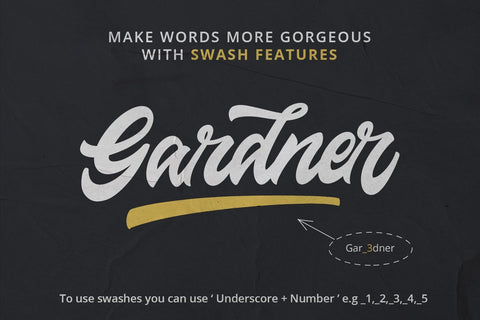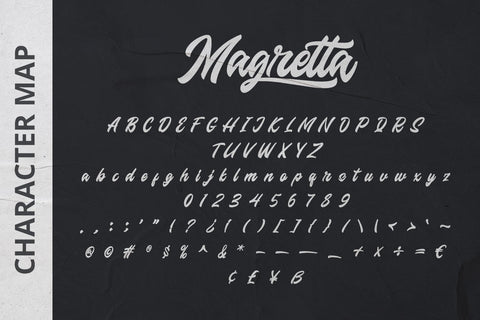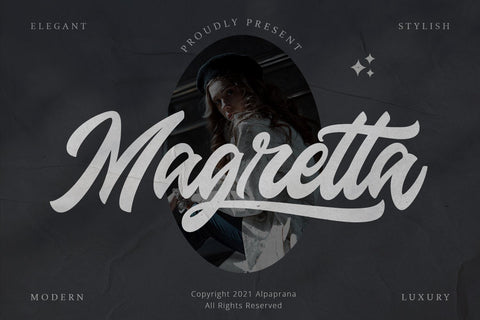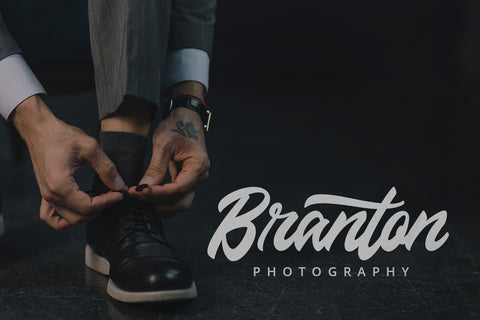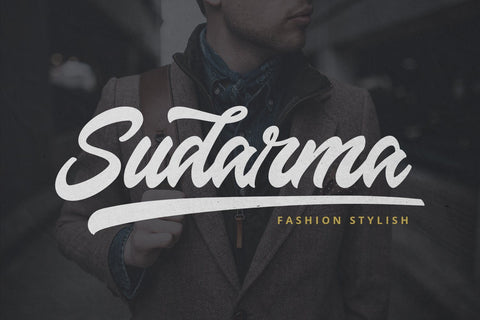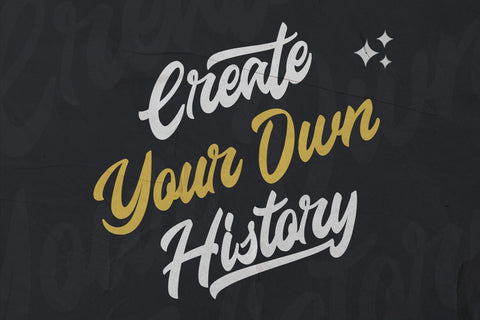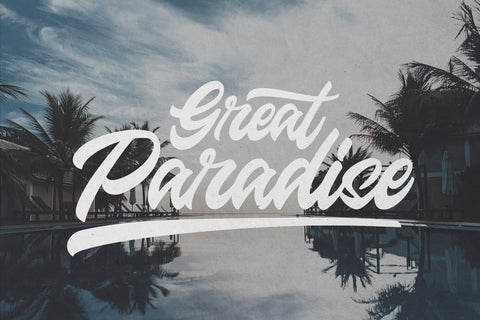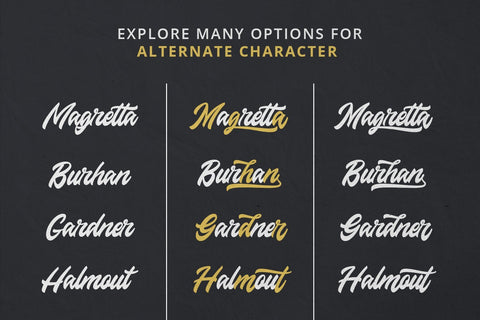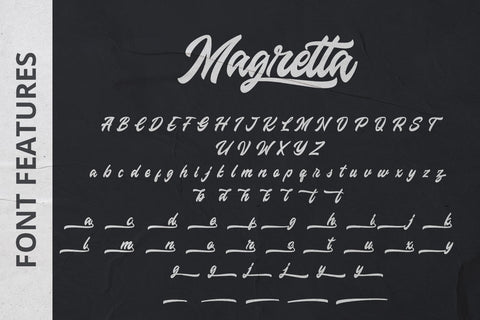
Magretta - Modern Script Font
Magretta is a stunning modern script font with authentic and casual feels. It will be perfectly used for Branding, Logo Design, Lettering, Logotype, Clothing, Poster, magazine, packaging, posters, shopping bags, t-shirts, book covers, photography, special events and other design project.